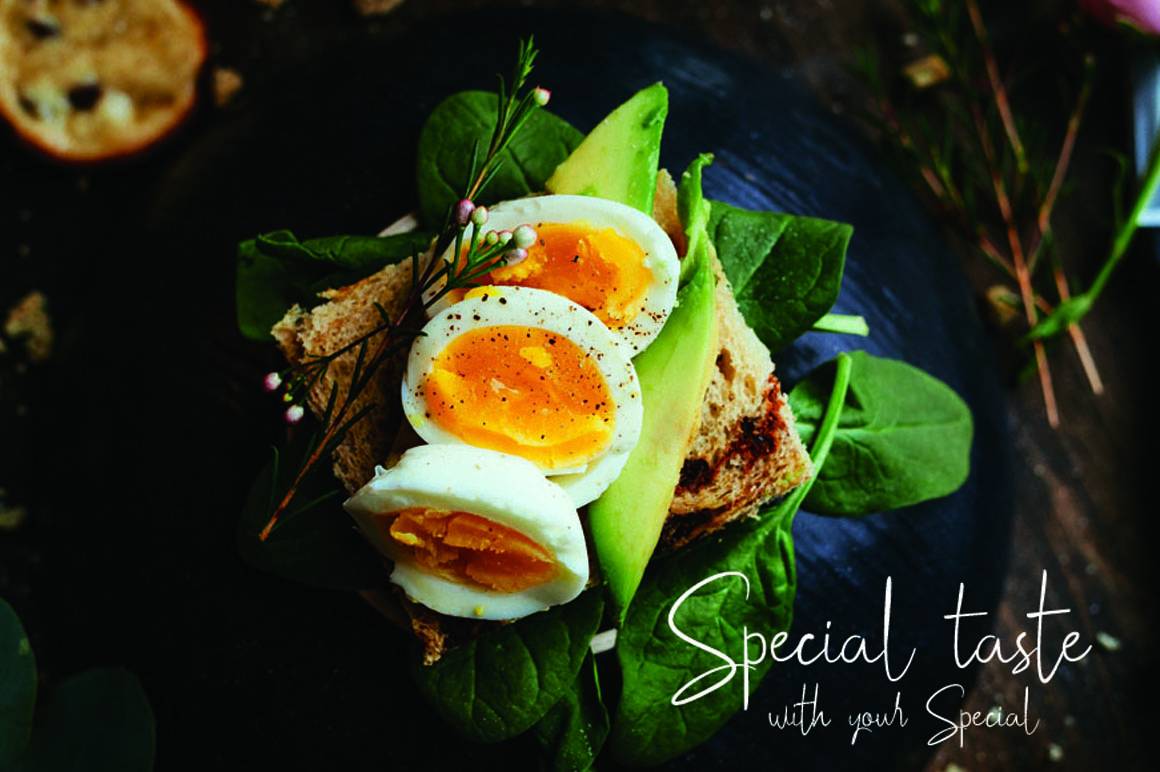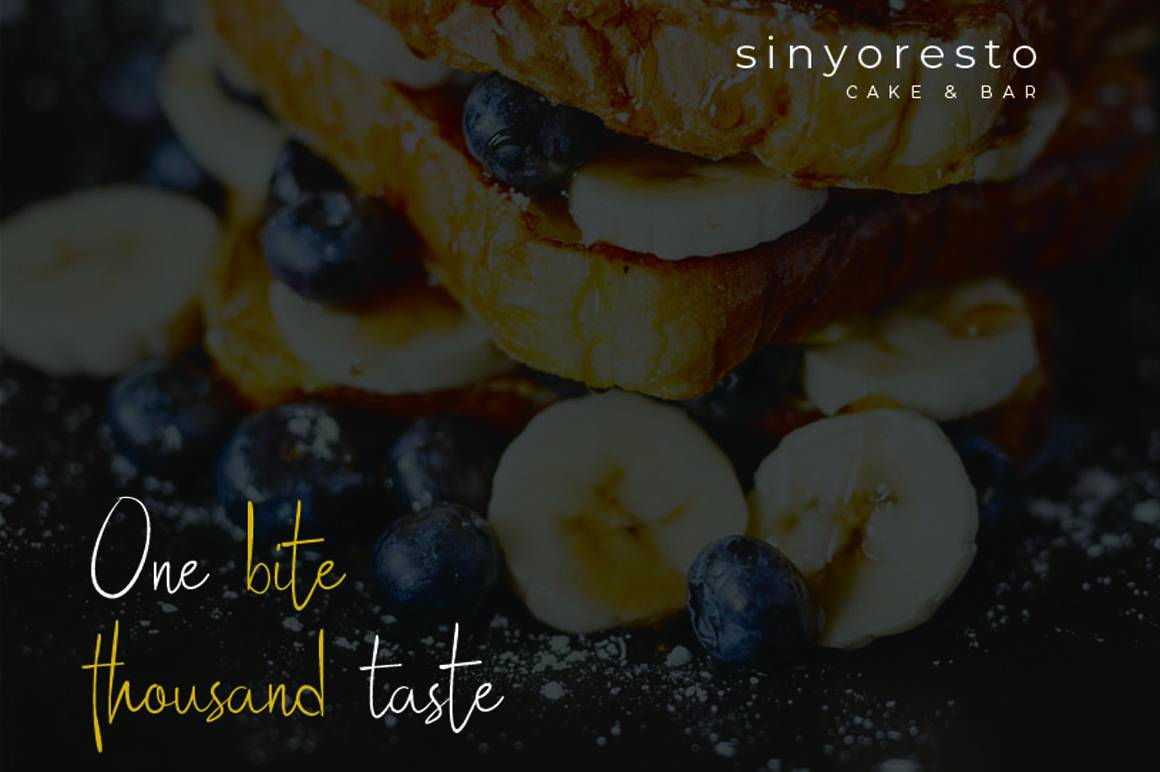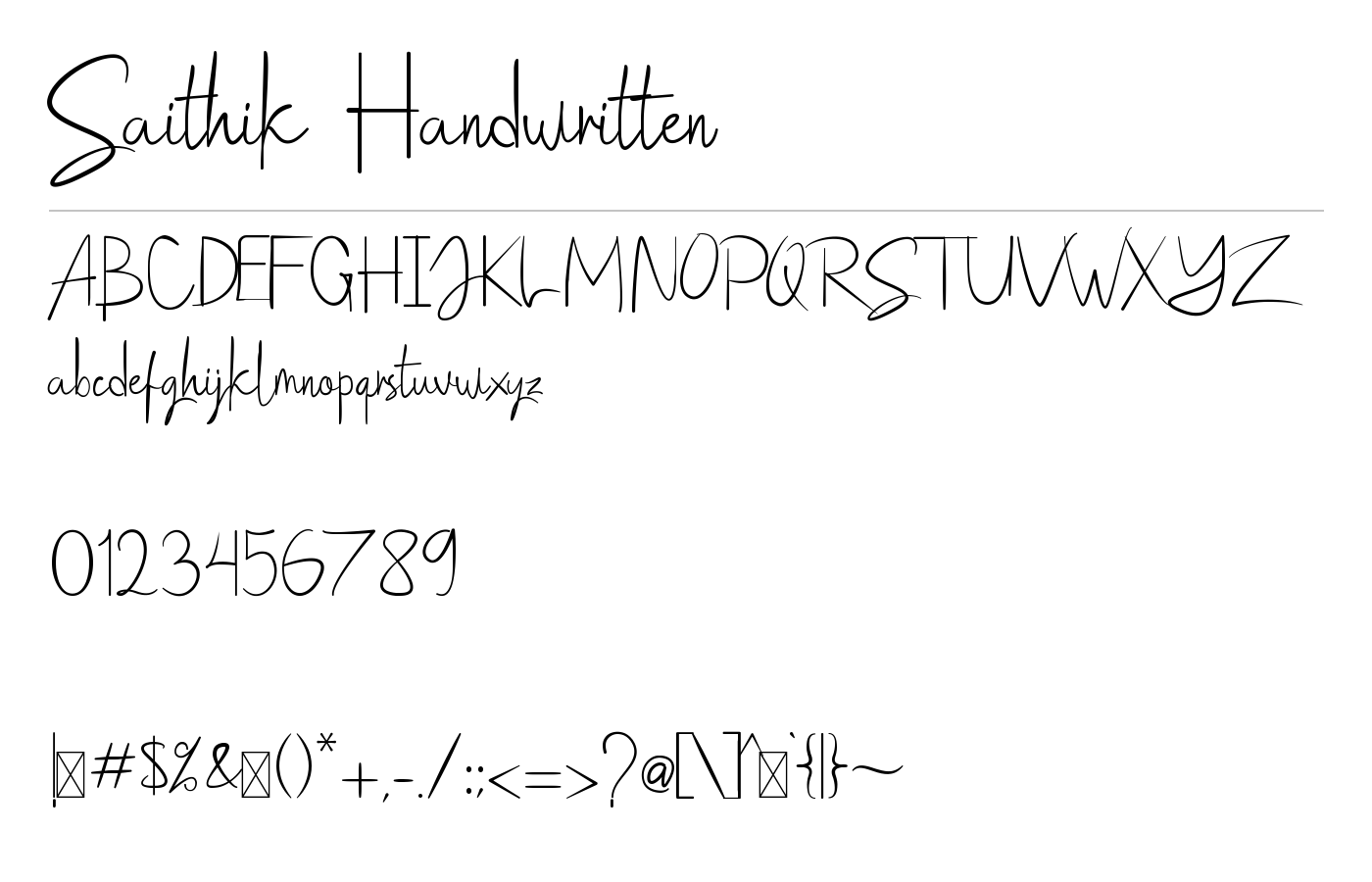
Saithik is a delicate handwritten font characterized by its tall, slender letterforms and light stroke weight, creating an airy and elegant feel. Its quirky, organic lines and playful letter shapes make it perfect for adding a personal, creative touch to designs such as invitations, casual branding, or editorial headlines. This font works well where a whimsical and approachable style is desired, balancing readability with unique charm.
Saithik Font
About Saithik Font
| Font family | Saithik Font |
| Designer | Aditya Rezki Apriyadi |